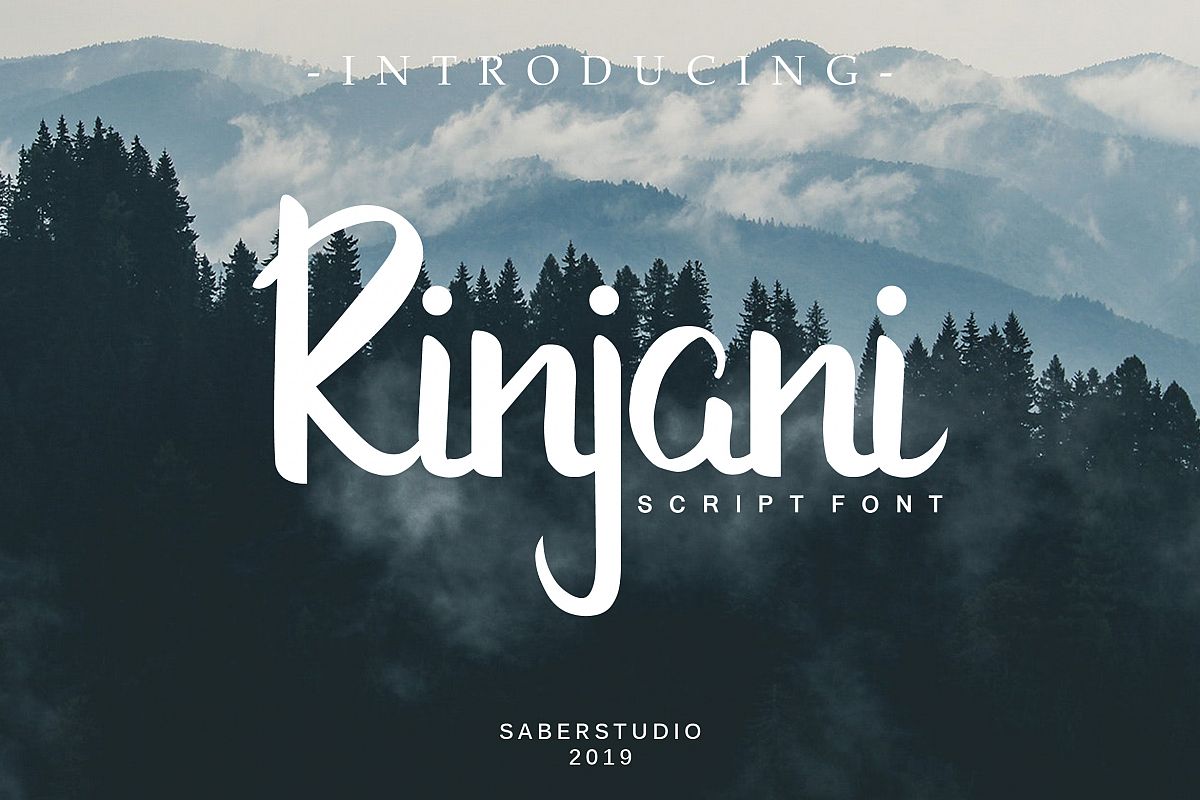
Rinjani
Rinjani is sript font. Rinjani come with one font style. This font is  suitable and applicable to create typography design, christmas card, branding, logos, product packaging, invitation, qoutes, t-shirt, label poster etc.
Rinjani Features :
- Number & Punctuation
- Ligature